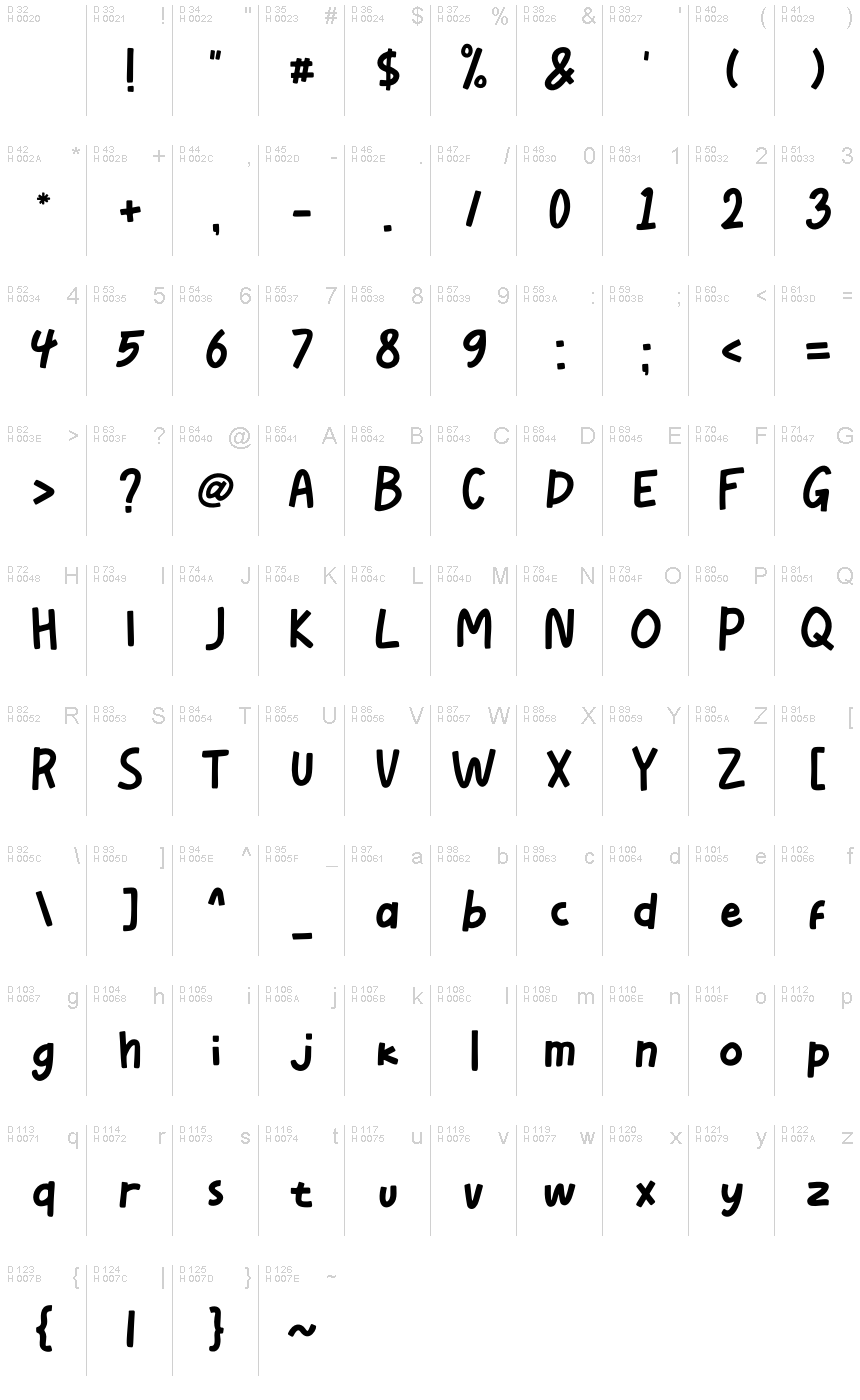
Bunny Runny
Bunny Runny by Olalatype is a whimsical display font that radiates playfulness and charm. Its cartoonish style invites a sense of fun, making it perfect for projects aimed at children or whimsical themes. The letters feature an endearing irregularity that lends a hand-drawn quality, evoking laughter and lightheartedness.
This font comes alive with its bouncy curves and exaggerated forms, capturing attention effortlessly while maintaining readability. Ideal for playful branding, packaging design, or eye-catching posters, Bunny Runny infuses any project with exuberance. Whether used in vibrant advertisements or cheerful event invitations, this delightful typeface ensures your message stands out with personality and flair.